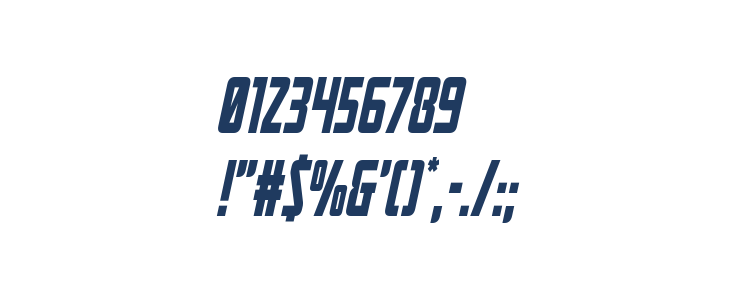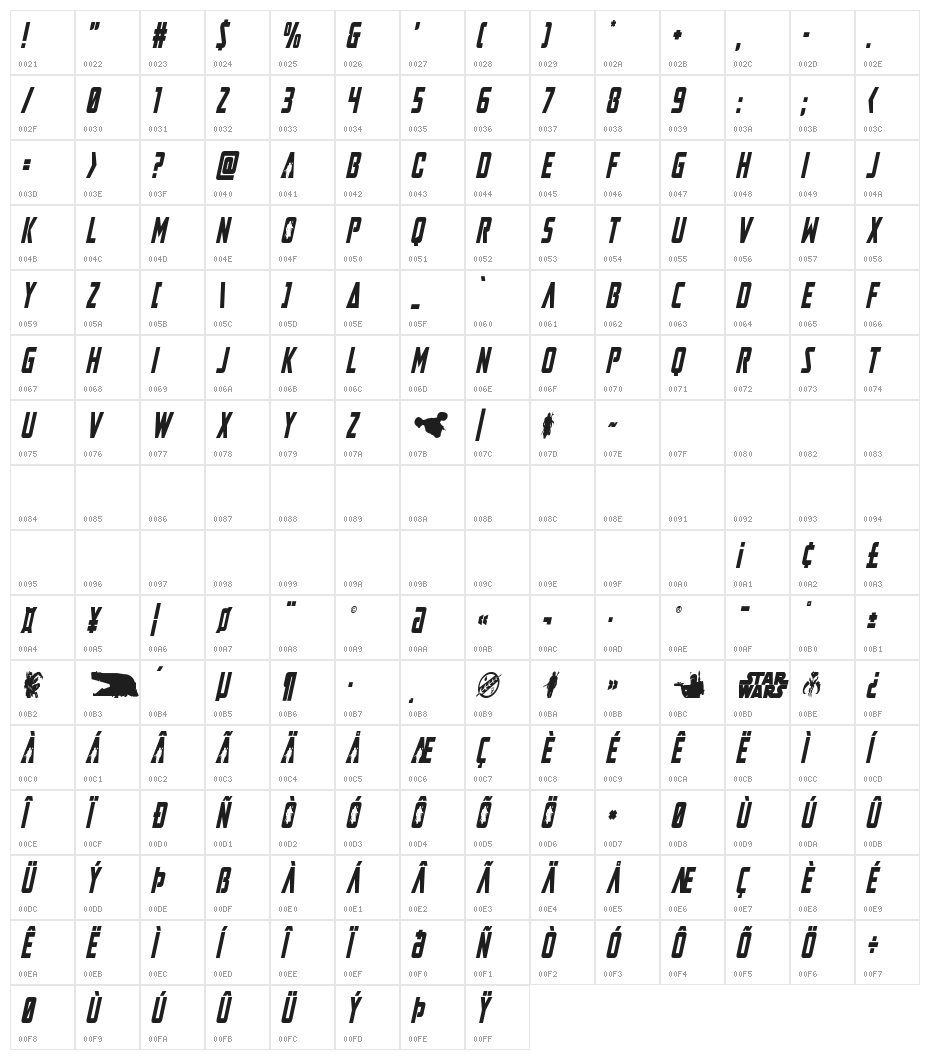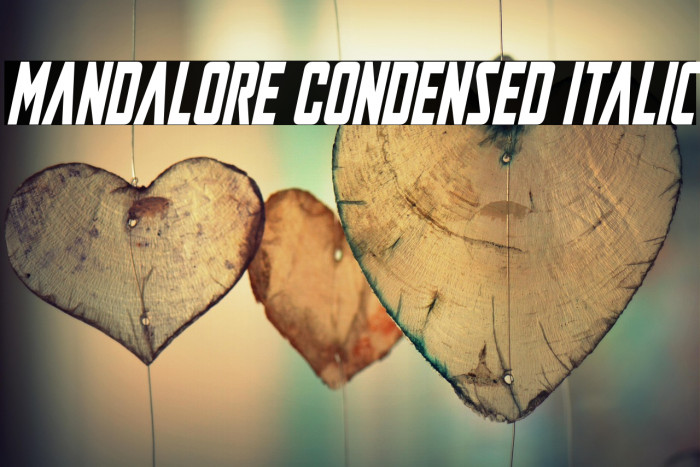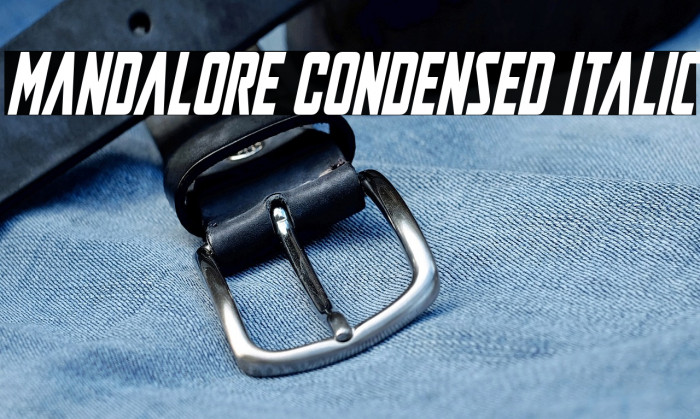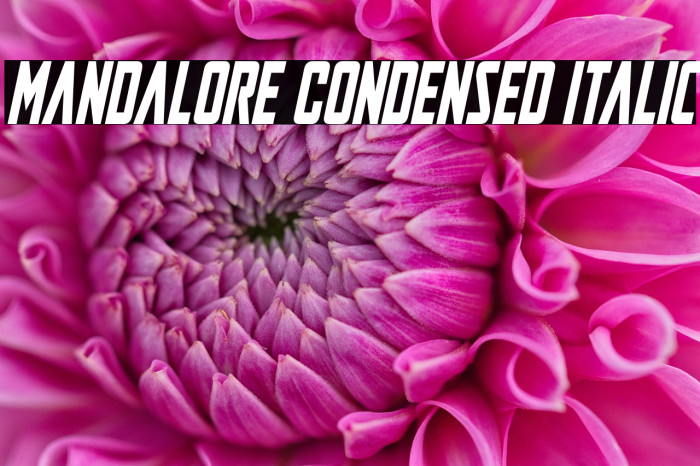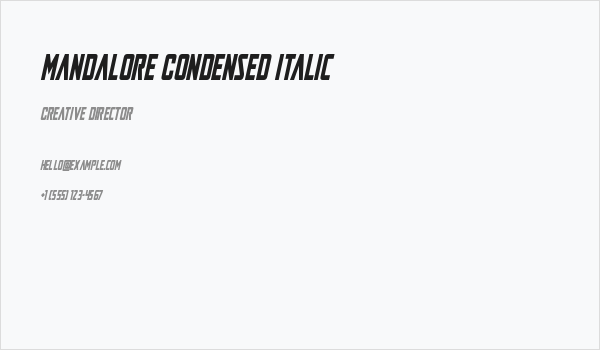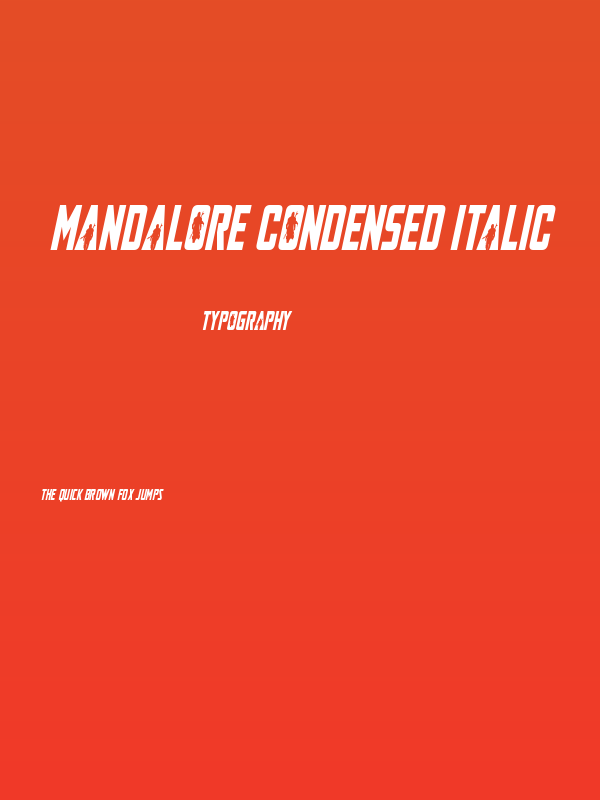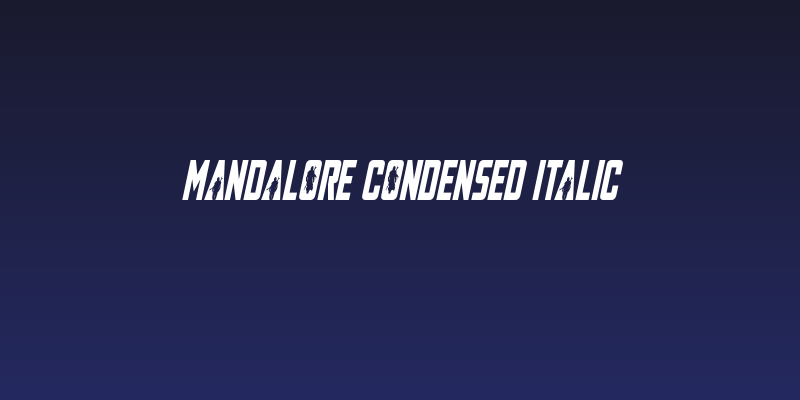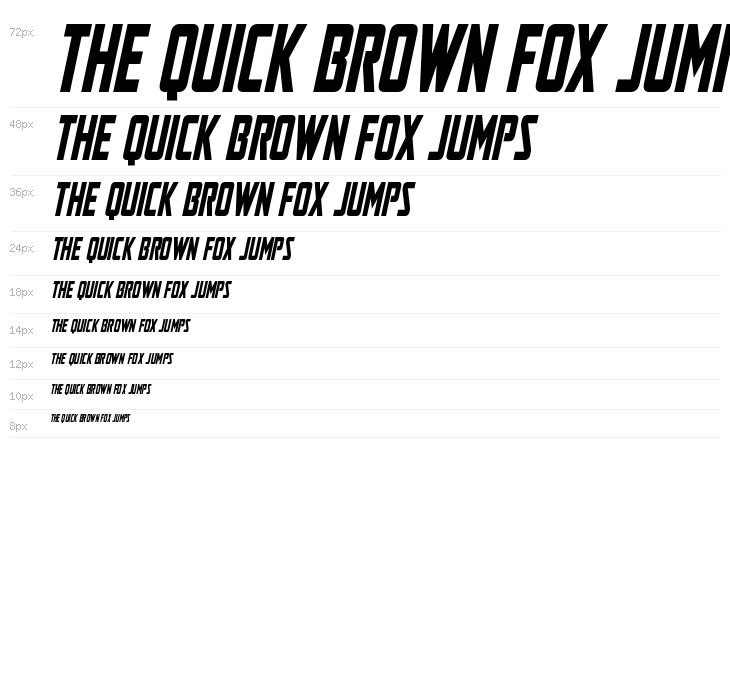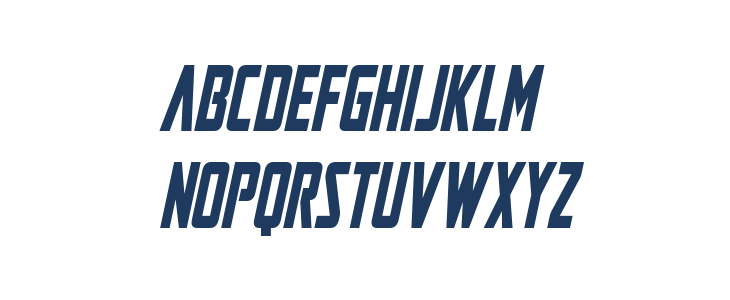
Mandalore Condensed Italic Font
Mandalore Condensed Italic Description
This font features a bold, condensed style with a distinct italic slant, giving it a dynamic and forward-moving appearance. The characters are tightly spaced, enhancing its compact look. The uppercase letters are particularly striking, with sharp angles and clean lines that convey a sense of strength and modernity. The numbers and special characters maintain this cohesive style, ensuring consistency across all text elements. This font's design is ideal for projects that require a bold statement, such as posters, headlines, or branding materials. Its unique style makes it stand out, capturing attention with its sleek and futuristic aesthetic.
Proposed ProjectsIdeal for posters, headlines, branding, and any project needing a bold, modern look.